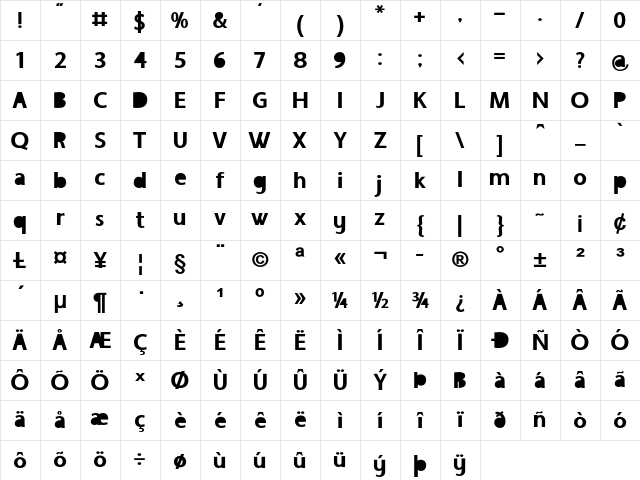
Tottenham Bold
Design Context for Tottenham
Tottenham is a composed and adaptable typeface that performs quietly and consistently across a wide range of design contexts. Its bold stroke weight gives it real presence on the page.
Pro Tip: Use Tottenham in both headline and body roles to test its range before committing to a single application.